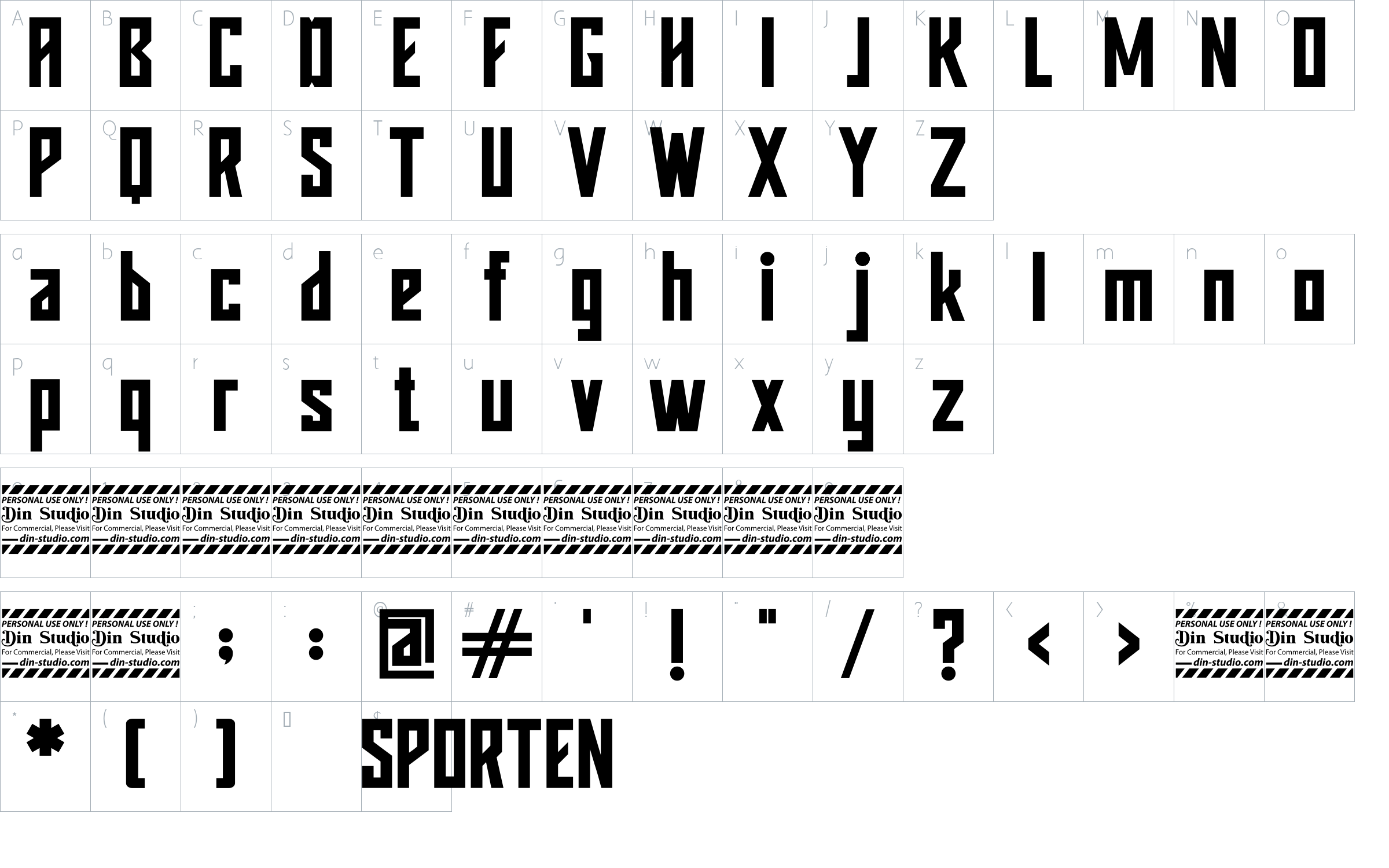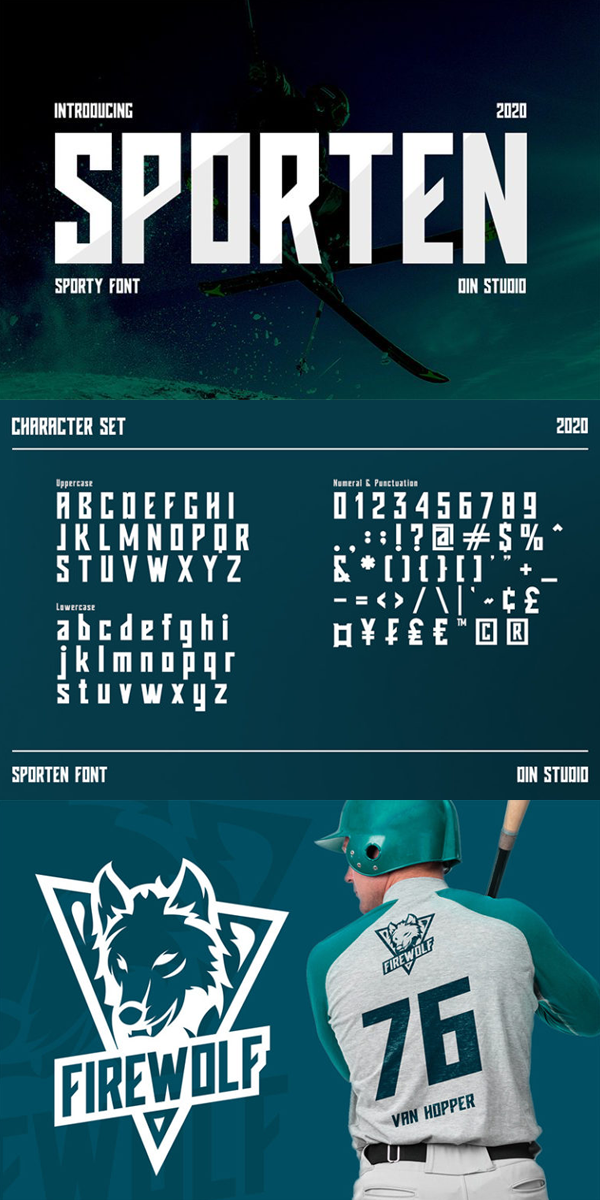
Sporten Font
About Sporten
Hello, Everyone! Introducing Sporten, a classic sport font made for any professional projects related to sports. Besides, this font can be used for printing, brandings and quotes. See the previews above to get some inspiration on how you can use them. Happy Designing!